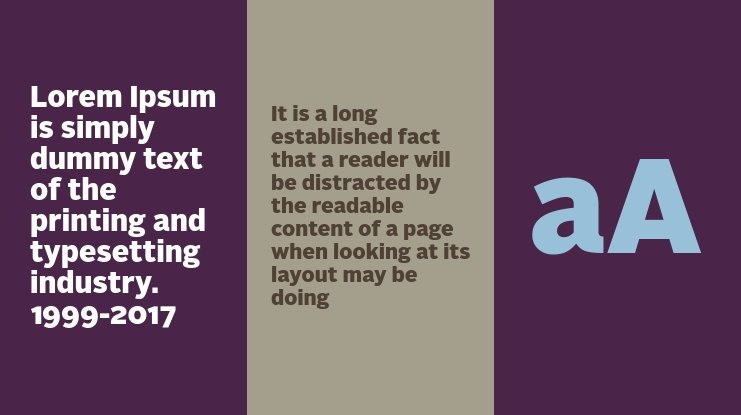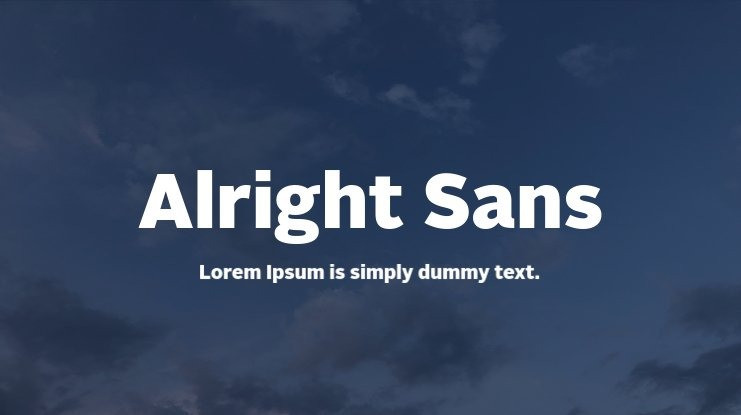
Alright Sans Font is a contemporary sans-serif typeface designed by Jackson Cavanaugh and released through Okay Type in 2009. Its design is influenced by both humanist and grotesque typefaces. Alright Sans has an impressive set of available weights and includes small caps for each weight and italic style—this makes it a super versatile font.
Alright Sans Font
| Designer Name: | Jackson Cavanaugh |
| Classification: | Sans Serif Fonts, Style / Aesthetic Fonts |